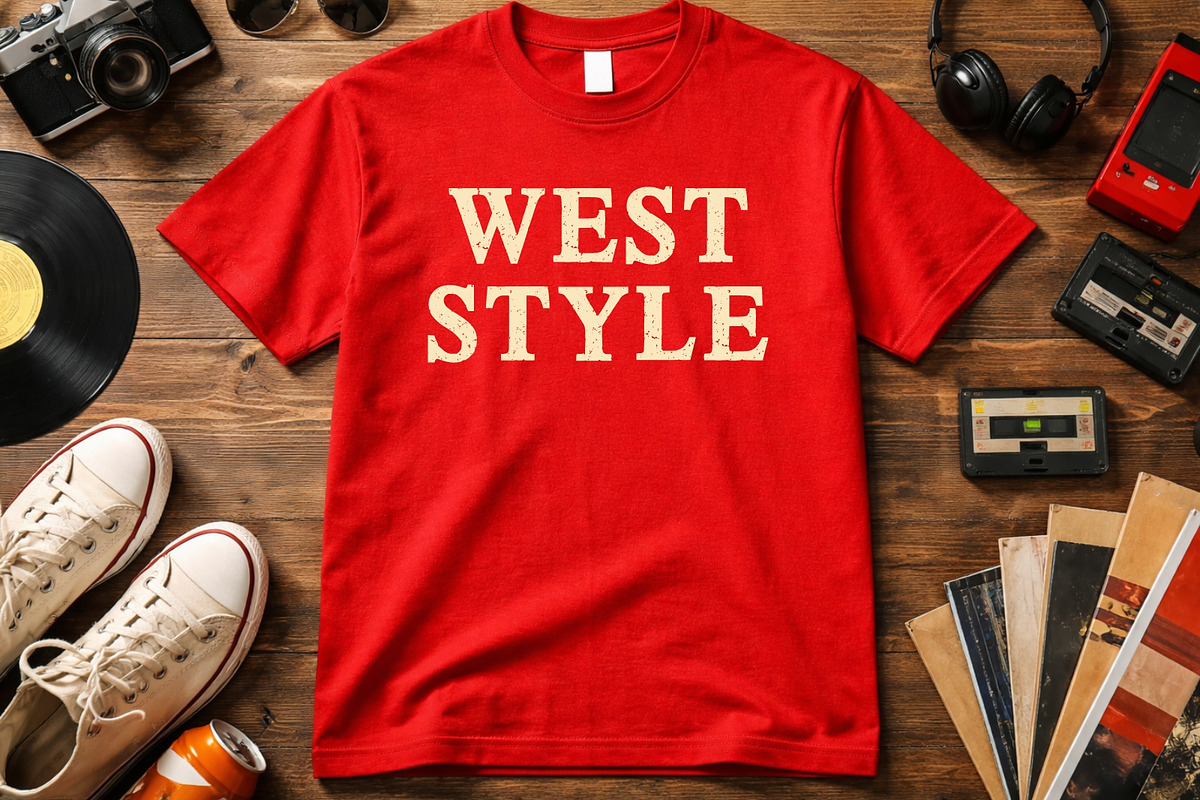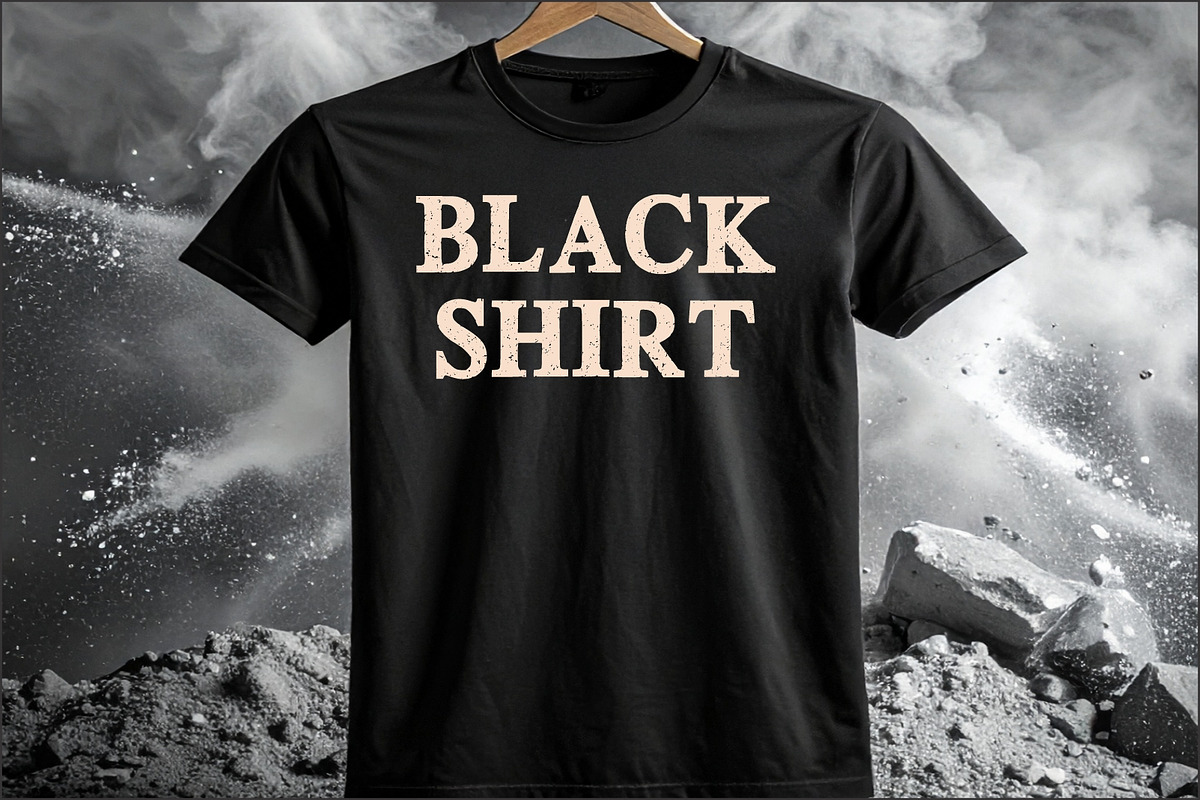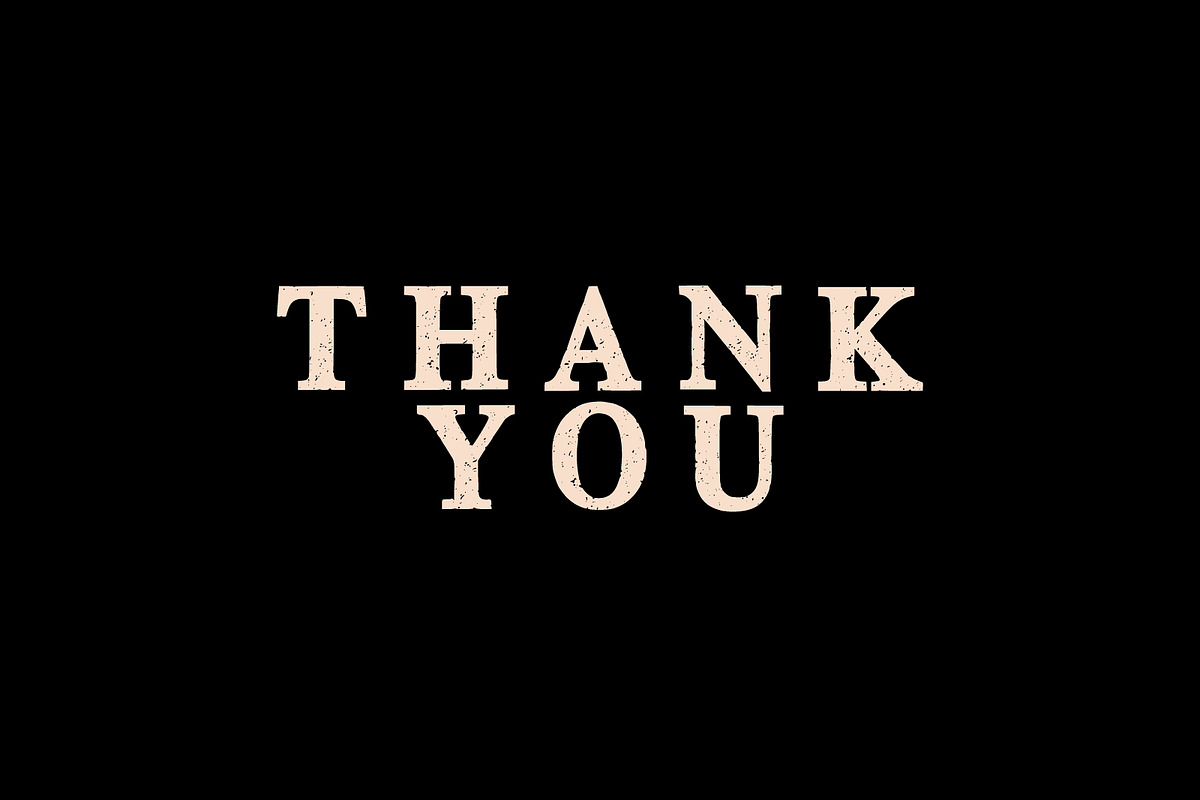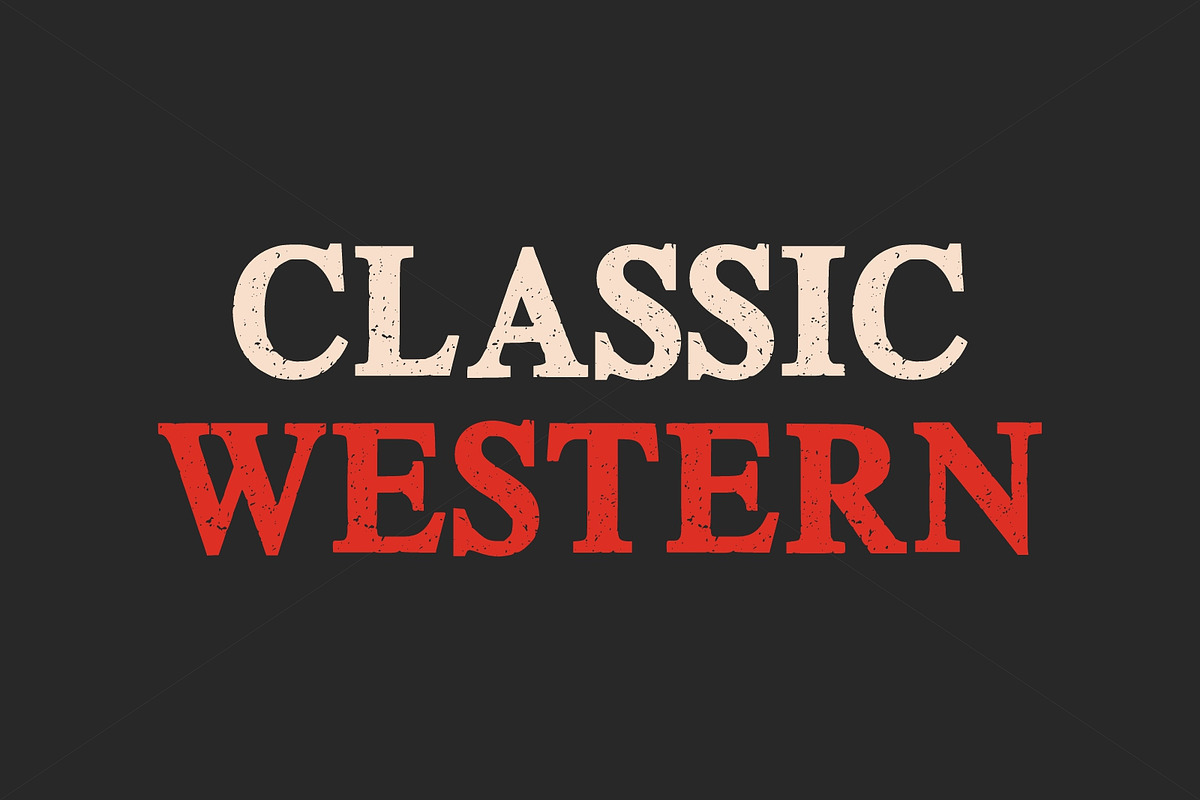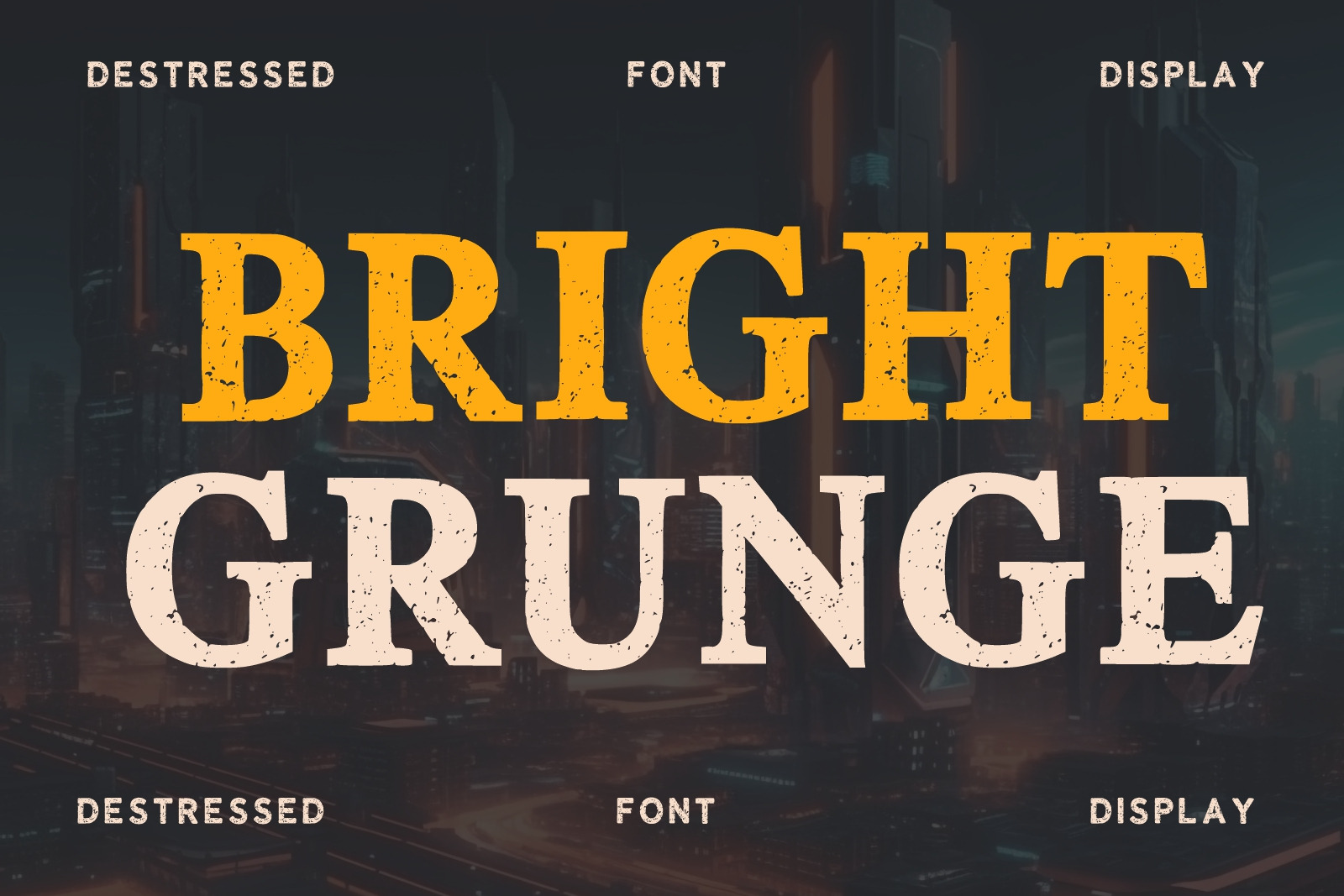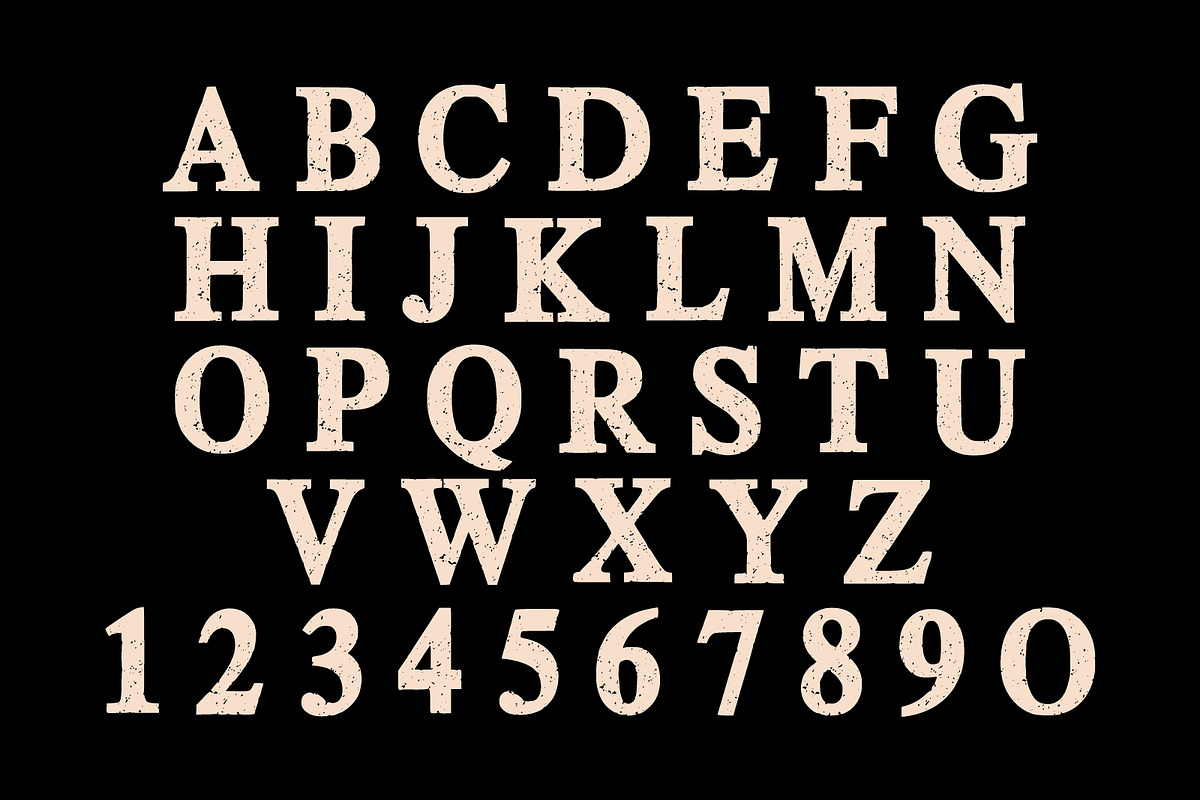
Bright Grunge Display Font
Bright Grunge Display Font is a bold and distressed typeface with a strong vintage character and textured details. This font is perfect for posters, branding, headlines, apparel designs, logos, gaming titles, movie posters, streetwear, and retro-themed projects. Its rugged grunge style gives your typography a powerful and eye-catching appearance while maintaining readability. Ideal for creative projects that need a bold urban and vintage aesthetic.